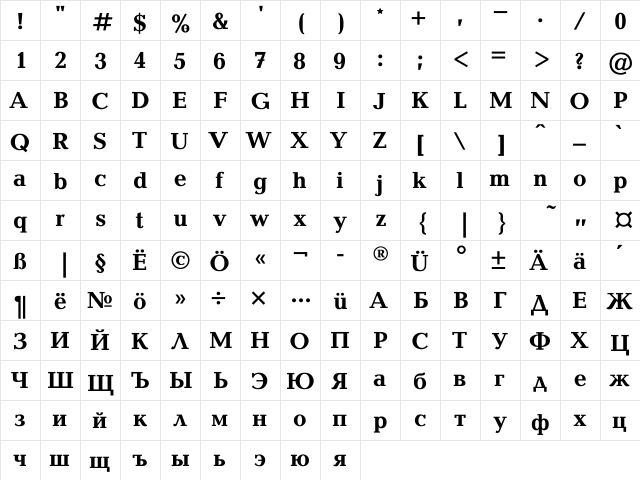
Baltica Bold
Design Context for Baltica Typeface
Baltica offers clean, dependable letterforms without strong stylistic allegiance, making it a practical choice for designers who need flexibility. The heavy weight commands attention and anchors typographic hierarchies.